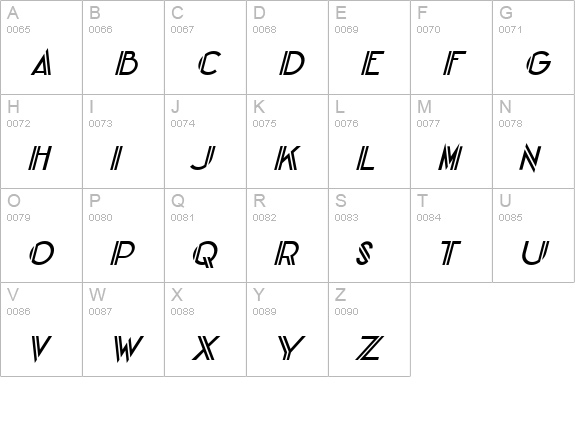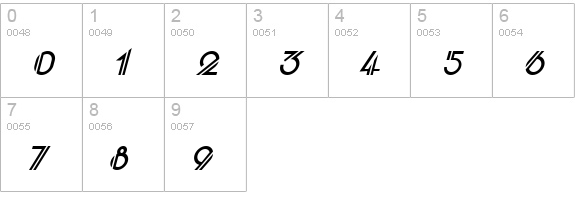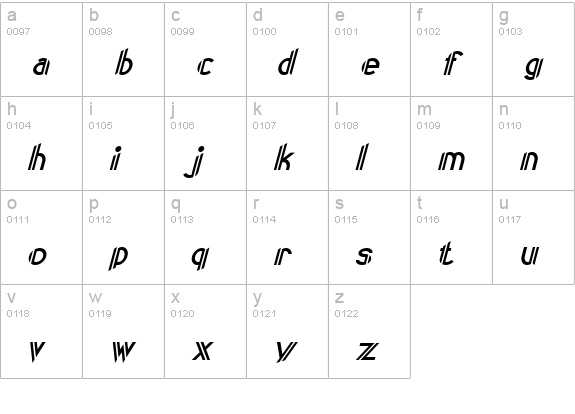
CentreClawsSlant Font Details
CentreClawsSlant is a unique and eye-catching font that exudes a sense of modern elegance and sophistication. Its slanted and sleek design adds a touch of dynamism to any text, making it perfect for a wide range of creative projects. With its sharp and precise letterforms, CentreClawsSlant effortlessly combines classic charm with contemporary flair. Each character is meticulously crafted to ensure legibility and readability, even at smaller sizes. Whether you're designing a logo, creating striking headlines, or adding a stylish touch to your website, this font is sure to make a lasting impression. What sets CentreClawsSlant apart is not only its exceptional aesthetics but also its accessibility. This font is available for free, allowing designers and enthusiasts alike to freely experiment and incorporate it into their projects. You can easily download CentreClawsSlant at FontsMarket.com, a trusted source for high-quality fonts. With CentreClawsSlant, the possibilities are endless. Its versatility and adaptability make it suitable for various design applications, from branding and packaging to editorial design and social media graphics. Its unique slanted style adds a touch of personality to any project, making it stand out from the crowd. So, if you're looking for a font that combines elegance, modernity, and the freedom to unleash your creativity, look no further than CentreClawsSlant. Download it for free at FontsMarket.com and discover the endless possibilities it brings to your designs.